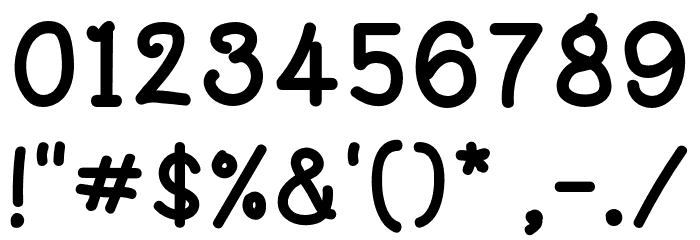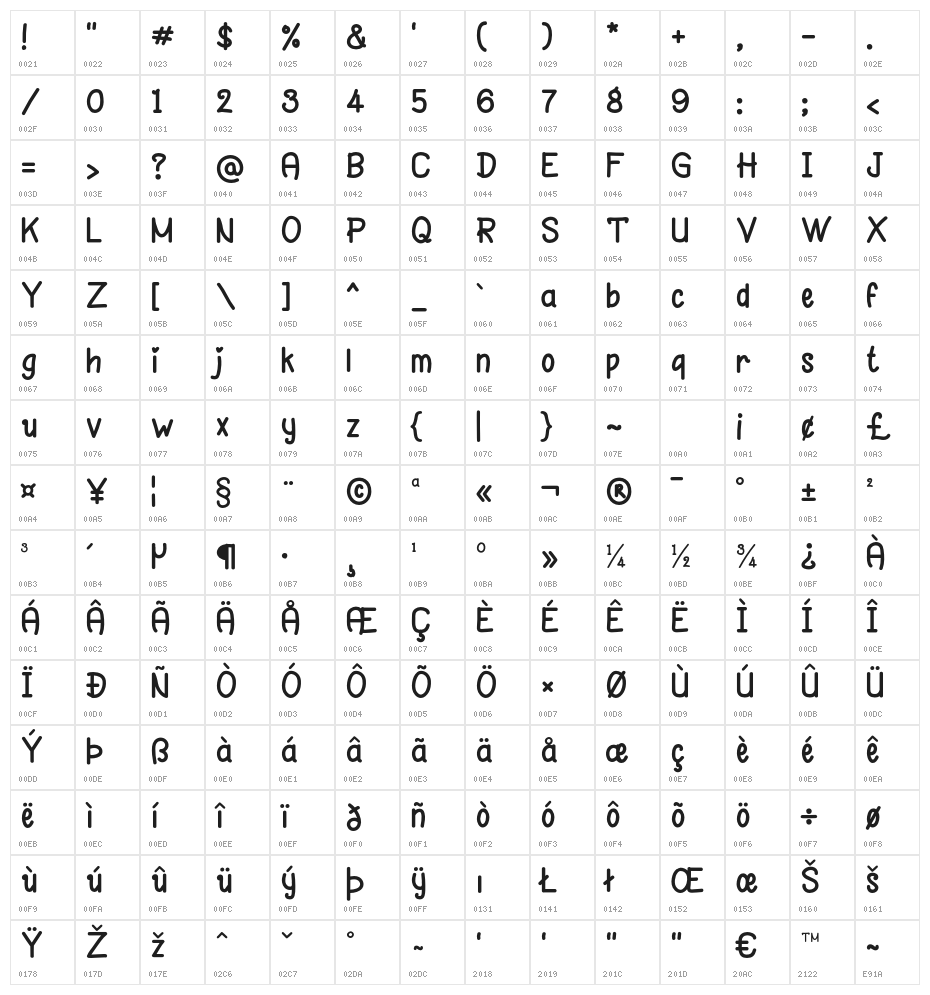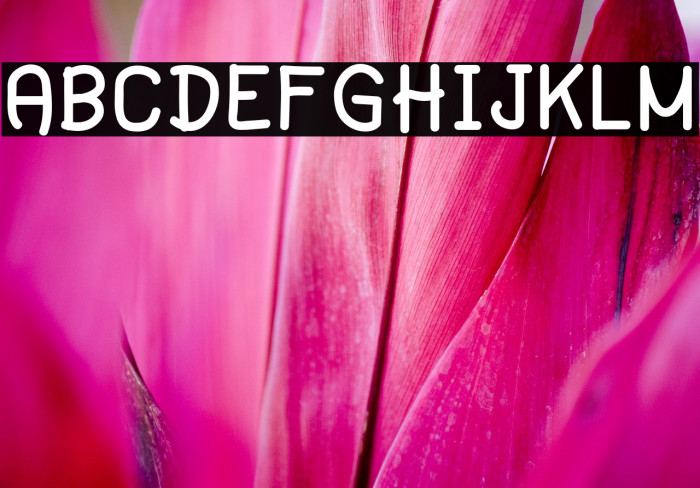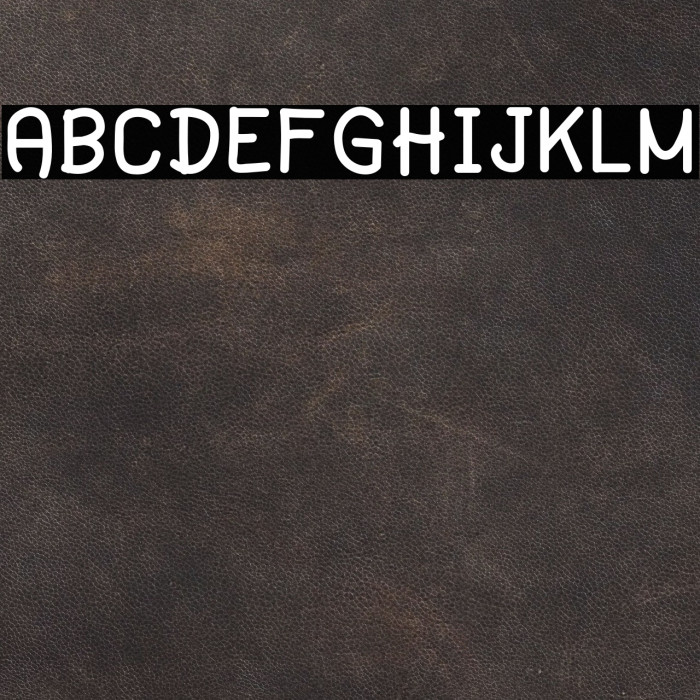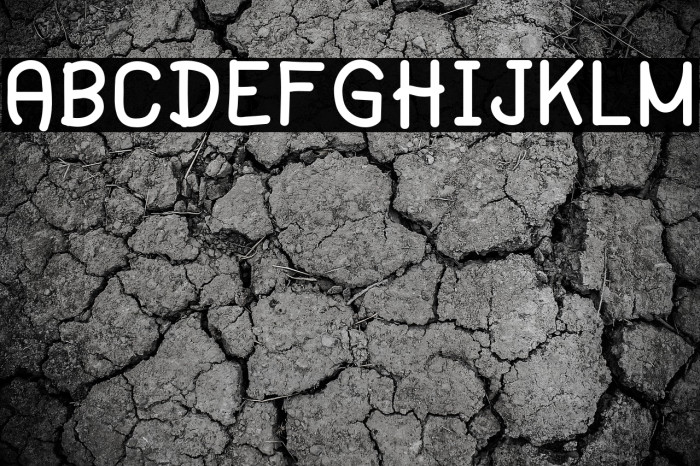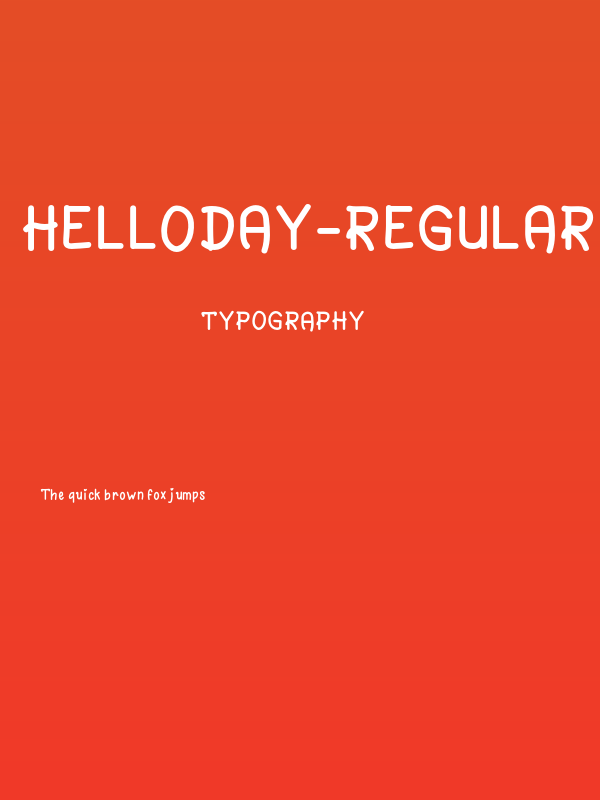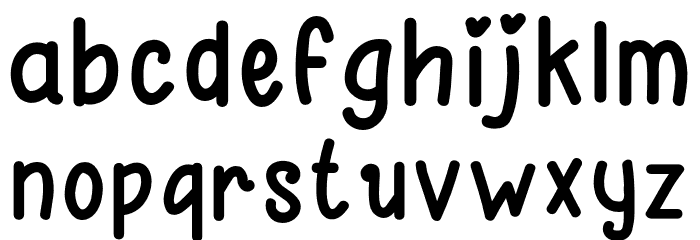
HelloDay-Regular Font
HelloDay-Regular Description
This playful and whimsical font features rounded, friendly characters with a hand-drawn aesthetic. The uppercase letters are bold and slightly irregular, adding a touch of charm and approachability. The lowercase letters maintain the same playful style, with some characters featuring unique flourishes, such as the heart-shaped dots on the 'i' and 'j'. The numerals are consistent with the overall style, offering a cohesive look. Special characters are included, maintaining the same playful and approachable design. This font is perfect for projects that require a friendly and informal touch.
| Proposed Projects | Ideal for children's books, greeting cards, playful branding, and casual invitations. |